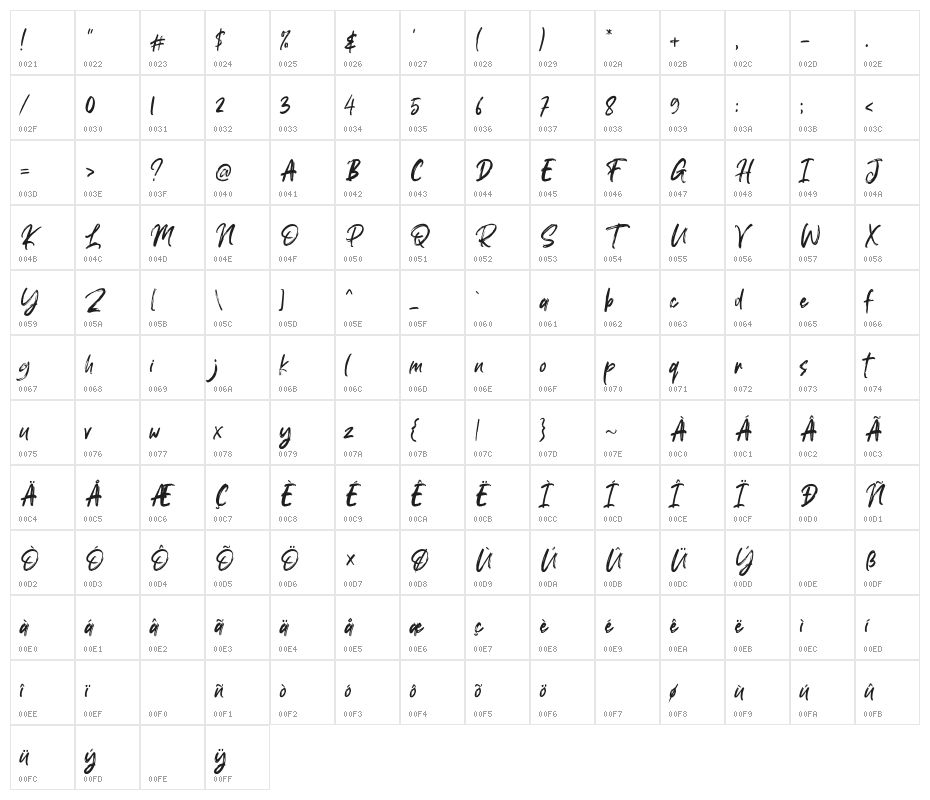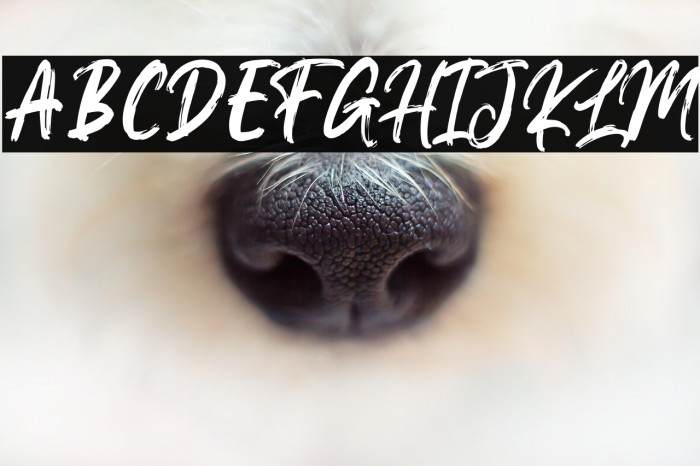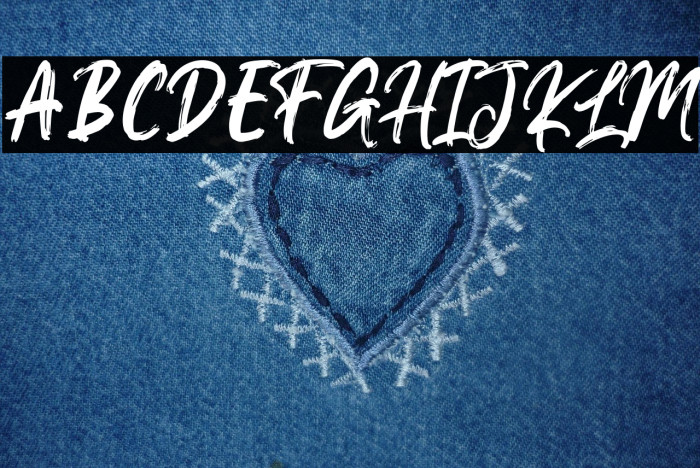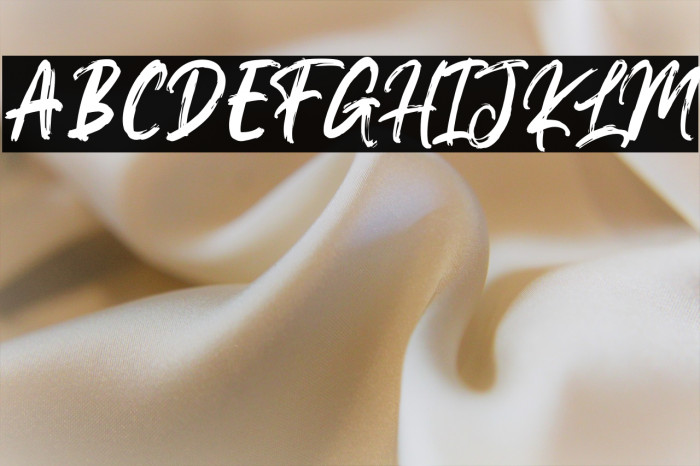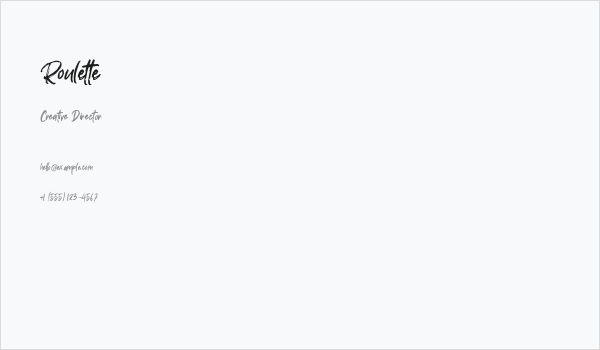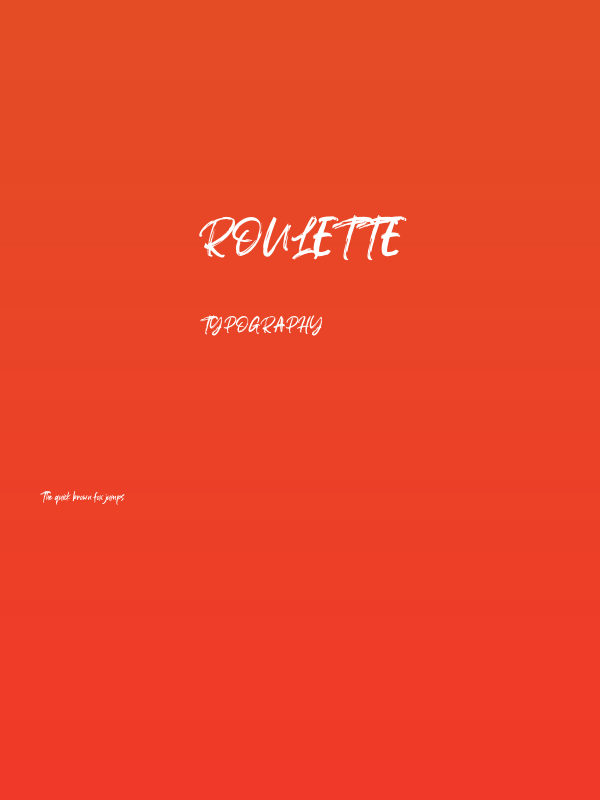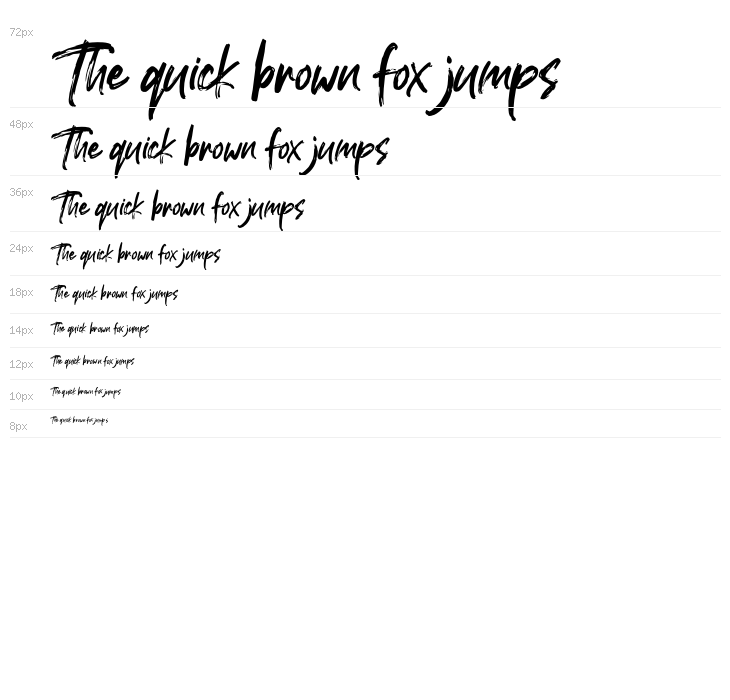
Roulette Font
Roulette Description
This font exhibits a bold, brush-like script style, characterized by its dynamic and energetic strokes. The letters are crafted with a sense of movement, giving an impression of spontaneity and artistic flair. The uppercase letters are particularly striking, with varying stroke widths that add a sense of rhythm and flow. The lowercase letters maintain this fluidity, complementing the uppercase with a cohesive style. Numbers and special characters are designed with the same brushstroke aesthetic, ensuring consistency across all elements. This font is ideal for projects that require a touch of creativity and expressiveness.
Proposed ProjectsIdeal for artistic projects, branding, posters, and invitations that require a creative and expressive touch.